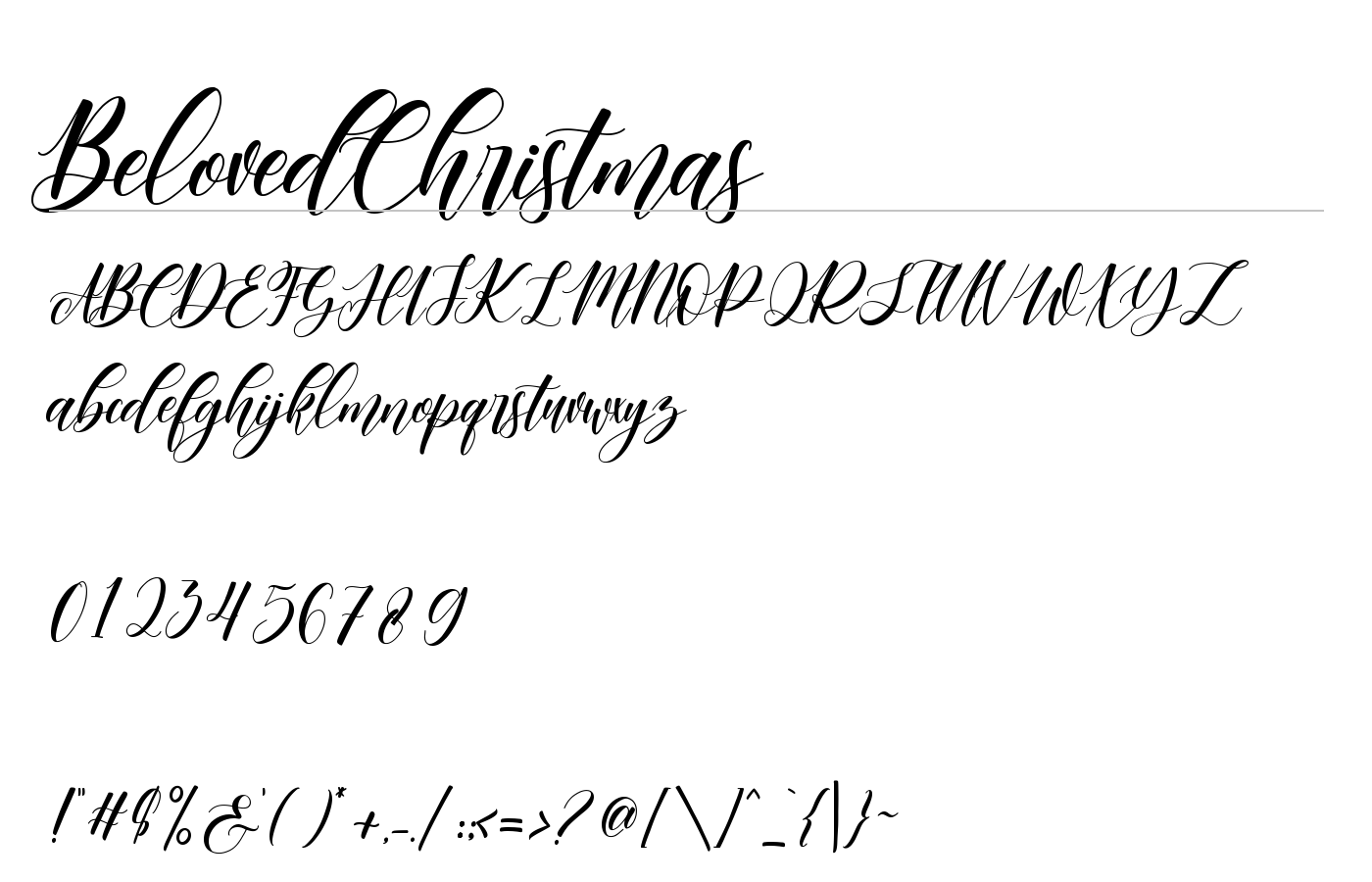
BelovedChristmas is an elegant and flowing script font with delicate, high-contrast strokes that convey a handwritten, calligraphic style. Its graceful letterforms and smooth connections create a romantic, festive feel, making it perfect for holiday cards, wedding invitations, and seasonal branding. This font brings warmth and charm, ideal for adding a touch of sophisticated celebration to any design.
BelovedChristmas Font
About BelovedChristmas Font